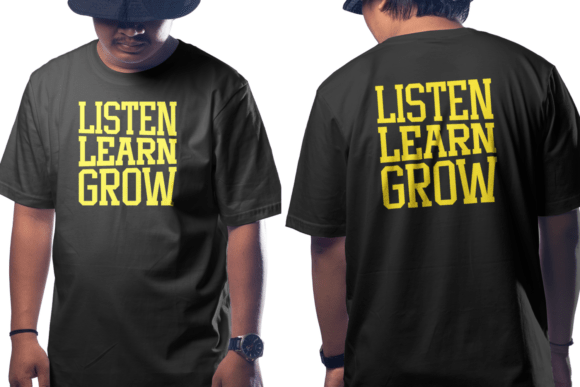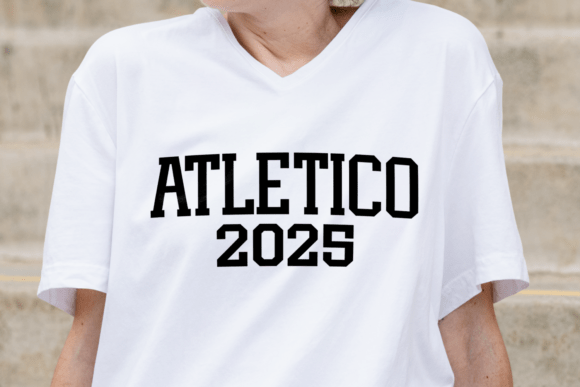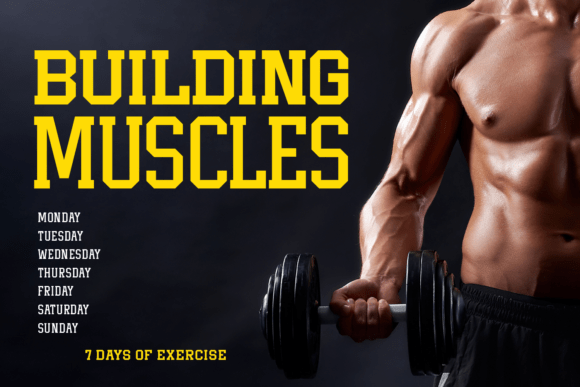
Bottom Length Font
Unleash the spirit of athleticism with the dynamic Bottom Length Sport Font. A unique blend of classic college font aura coupled with the energy of a jersey font, this outlined alphabet marks the perfect balance between sophistication and vigor. Interpret the feel of a collegiate font with an artistic twist, designed to accentuate your creative projects. Relish in the fluid elegance of this sport alphabet, that works seamlessly in painting a picture of strength, determination and passion. Ideal for projects aimed at capturing attention and exuding a sense of spirited sportsmanship. Experience the dynamic power of the Bottom Length Sport Font.